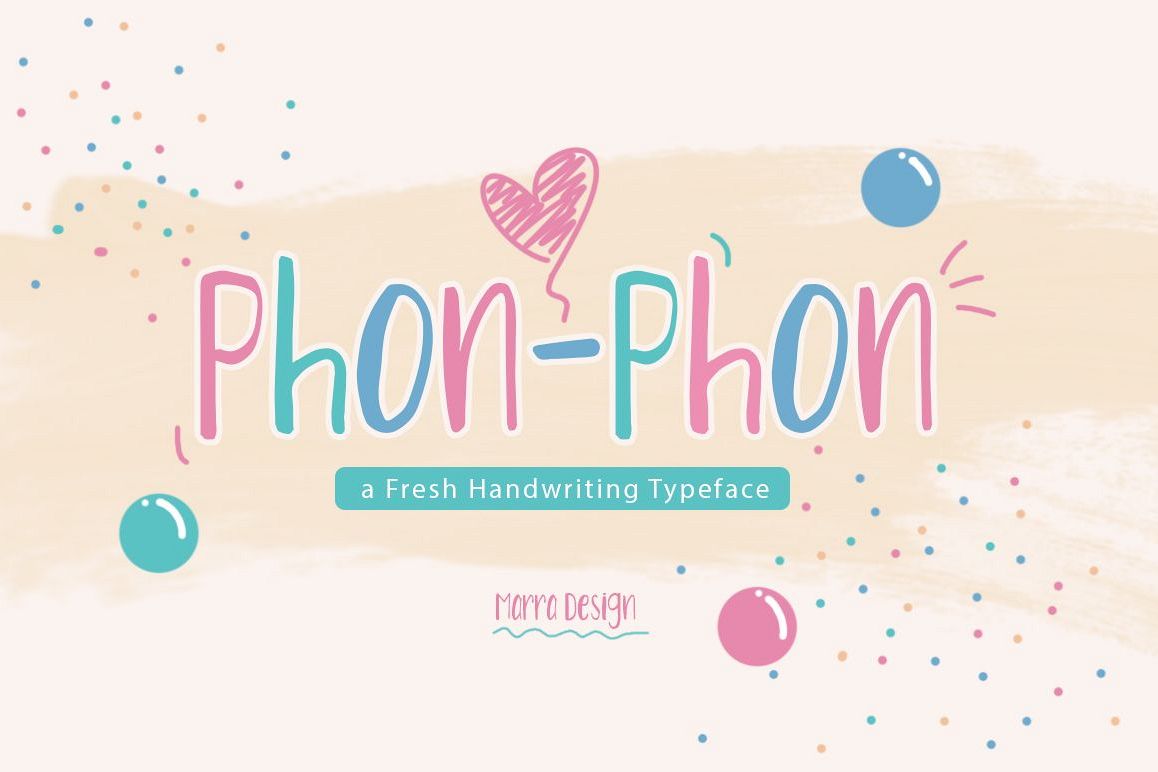
Phon - Phon
font
Phon - Phon font is a modern font with the current handwriting style, this font is perfect for branding,  magazines, mugs, business cards,  posters, and more, you can try first if you want to buy this font.
handwriting typeface so you can customize the best for your design.